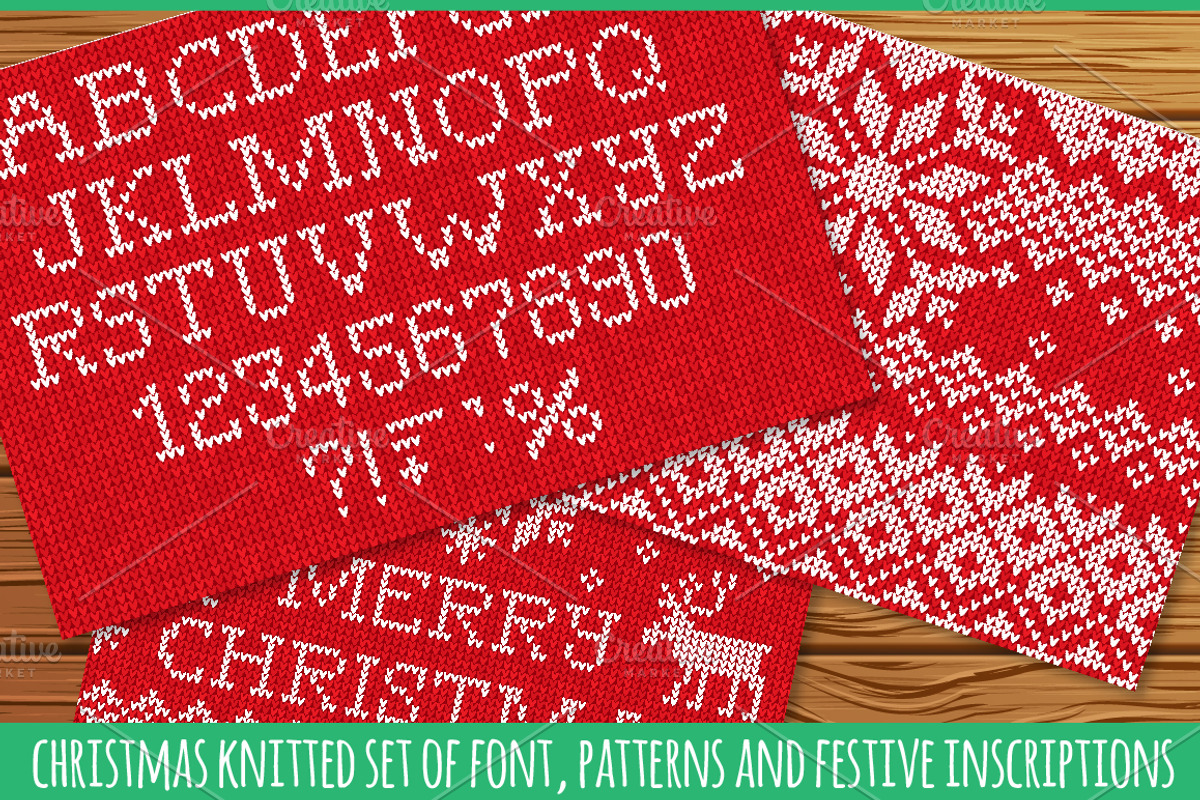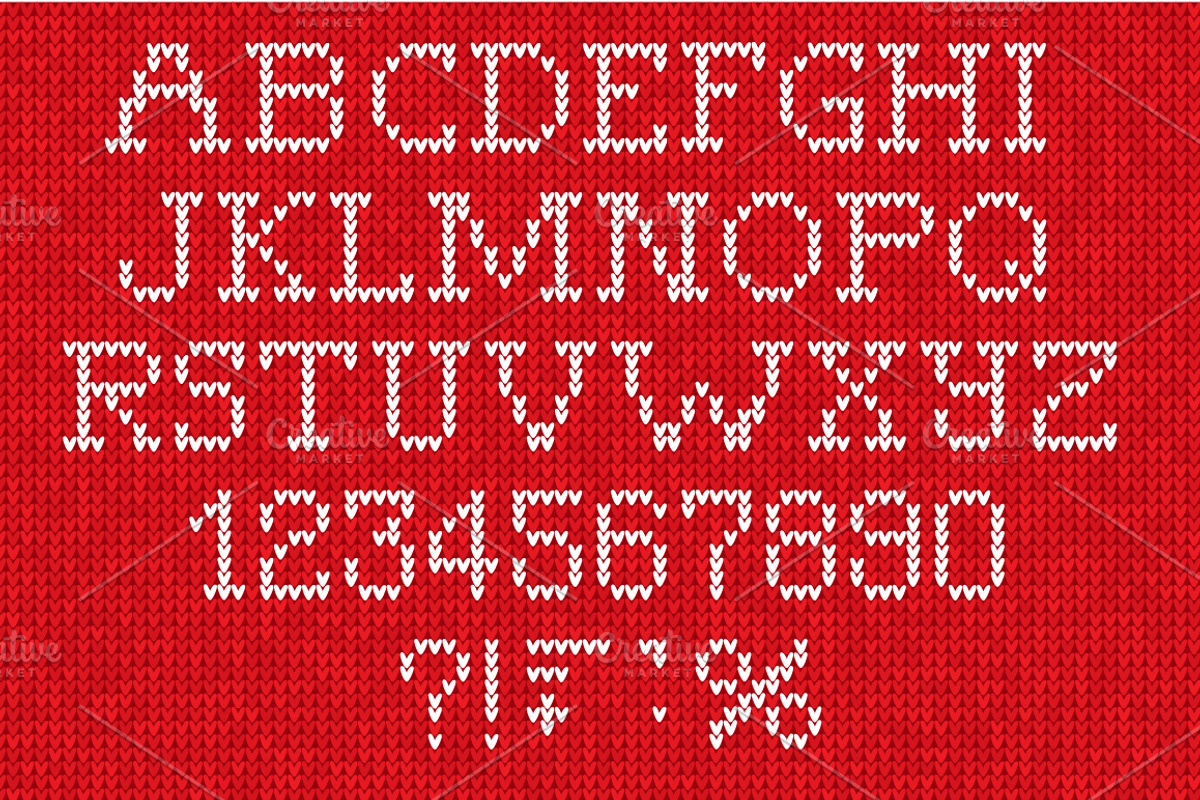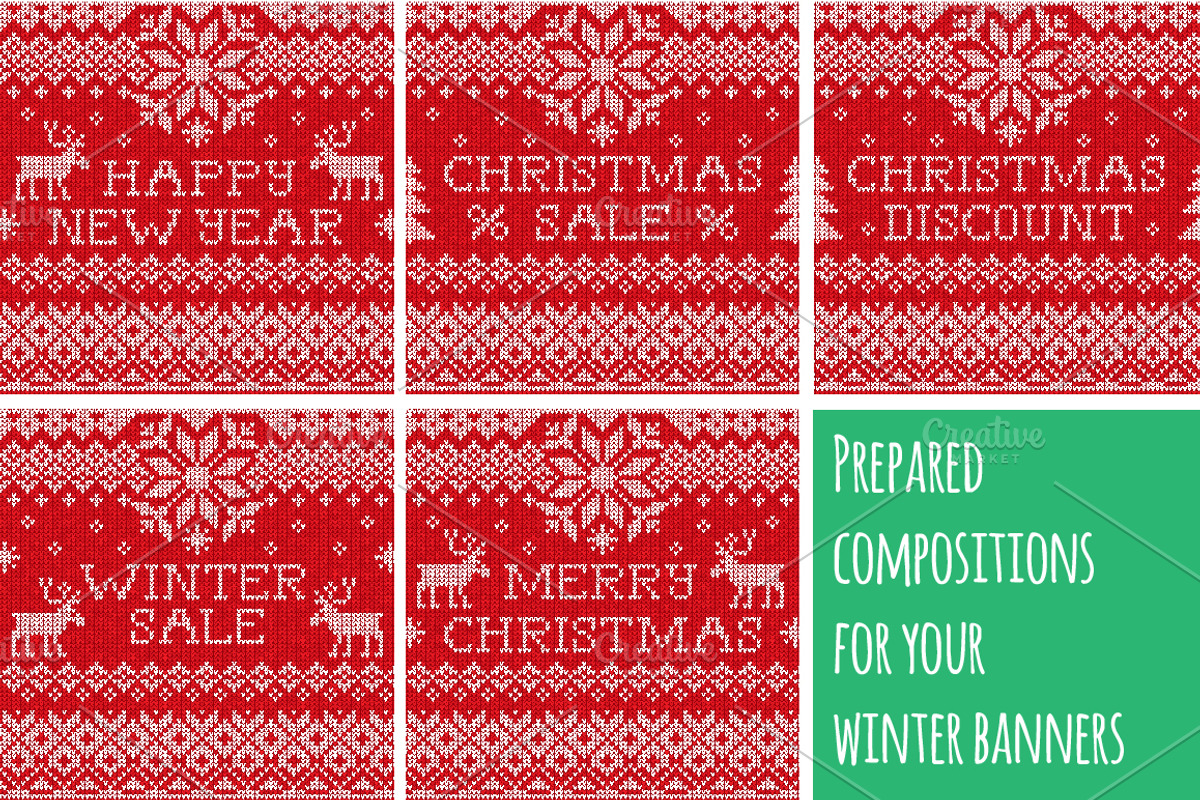
Knitted FONT and patterns (r)
Christmas Set of knitted font, patterns and inscriptions.
Elevate your festive designs with our "Christmas Set of Knitted Font, Patterns, and Inscriptions." Immerse your projects in the warm, handcrafted charm of knitted letters and playful punctuation. This set includes meticulously crafted inscriptions, including "Merry Christmas," "Happy New Year," and more, adding a delightful touch to your seasonal creations. The cozy red seamless knitted background and delicate white Scandinavian ornaments offer a perfect backdrop, evoking a sense of holiday cheer.
- Charming knitted letters and punctuation marks
- Thoughtfully designed inscriptions for easy integration into your projects
- Festive compositions perfect for winter banners
- Delicate white Scandinavian ornaments for a touch of elegance
With this set, you unlock a world of creative possibilities. Seamlessly integrate knitted elements into your holiday designs, adding a personal touch to cards, banners, merchandise, and more. The versatile font allows for a wide range of applications, from eye-catching headlines to charming product labels.